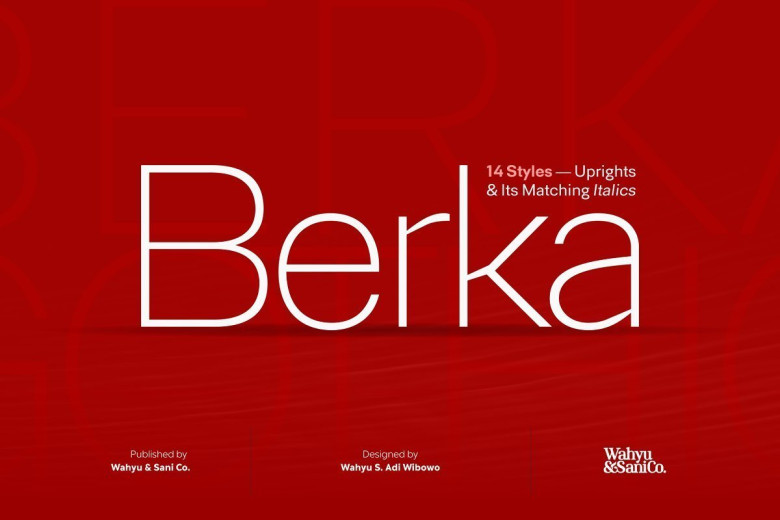
Berka Sans Serif Font
This is Berka Sans, a low contrast hybrid typeface which combines grotesque typeface traditions with geometry and a little touch of humanistic . This font family comes in 7 weights from Thin to Black with matching italics.
Each family member of Berka also equipped with useful OpenType features such as Ordinals, Superscripts, Subscripts, Stylistic Alternates, Stylistic Sets, Proportional Lining, Standard Ligatures, Fractions, Numerators & Denominators. Each font has 490+ glyphs which covers Western & Eastern Europe, and other Latin based languages – over 200 languages supported!
Berka Sans will be suitable for many creative projects. With its versatility, Berka typeface will be suitable for logos, posters, presentations, headlines, lettering, branding, quotes, titles, magazines, headings, web banners, mobile applications, art quotes, advertising, packaging design, book title, and more! This font is free for PERSONAL USE. Link to purchase full version and commercial license: HERE